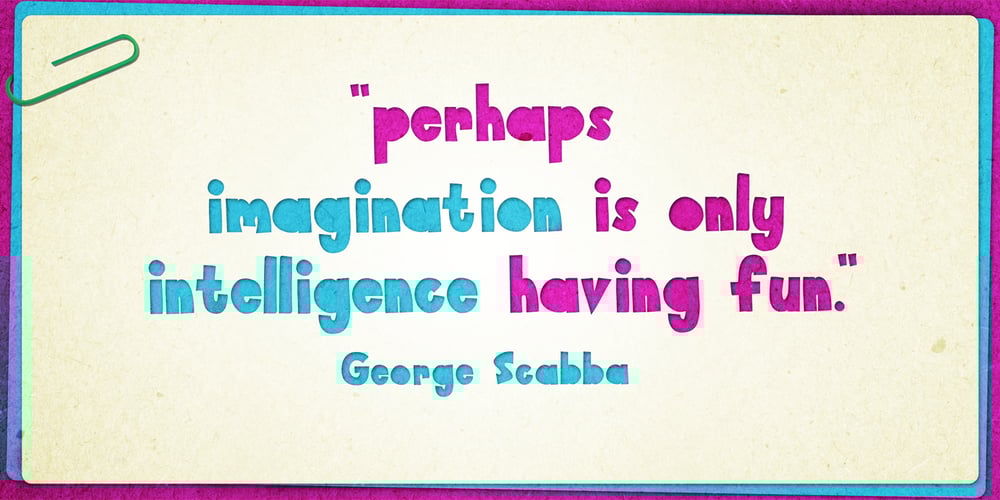
Paper Cutout Pro Font Family was designed by Kimmy Kirkwood and published by Kimmy Design. Paper Cutout Pro contains 2 styles and family package options. Paper Cutout Pro is a playful typeface inspired by paper letterforms cutout by scissors. It’s imperfect letters create the feel of an authentic hand-cut school project. It comes in regular and round versions.